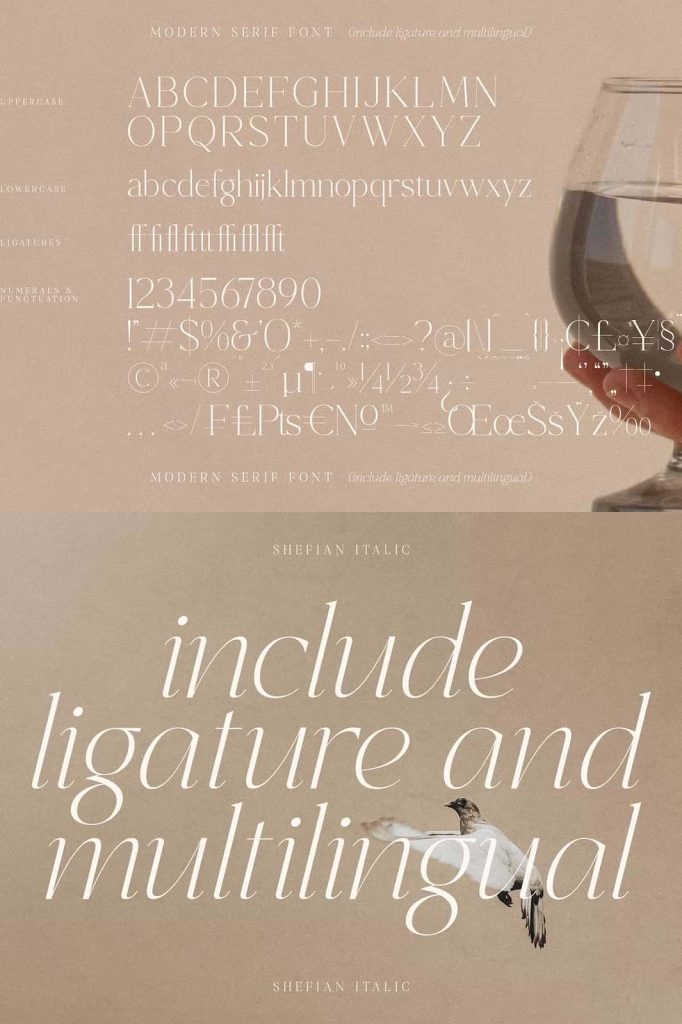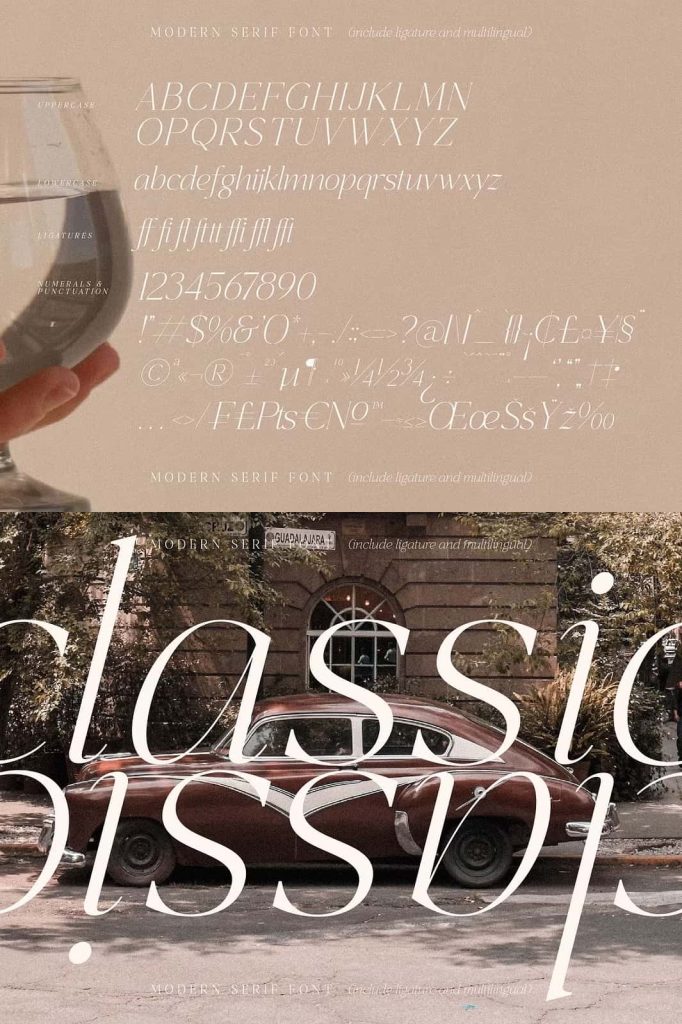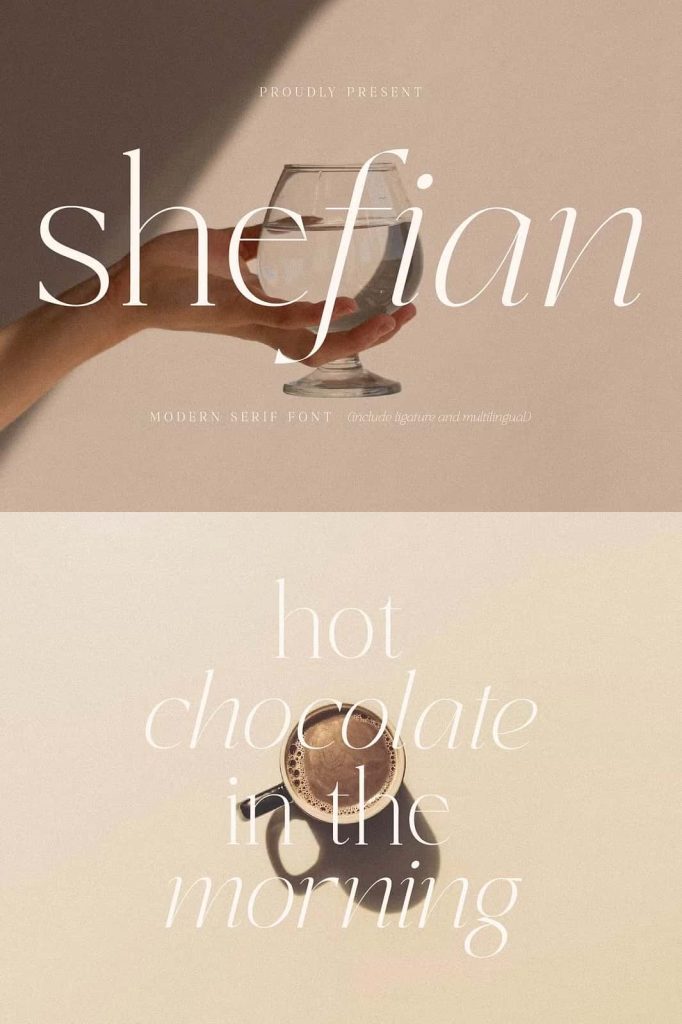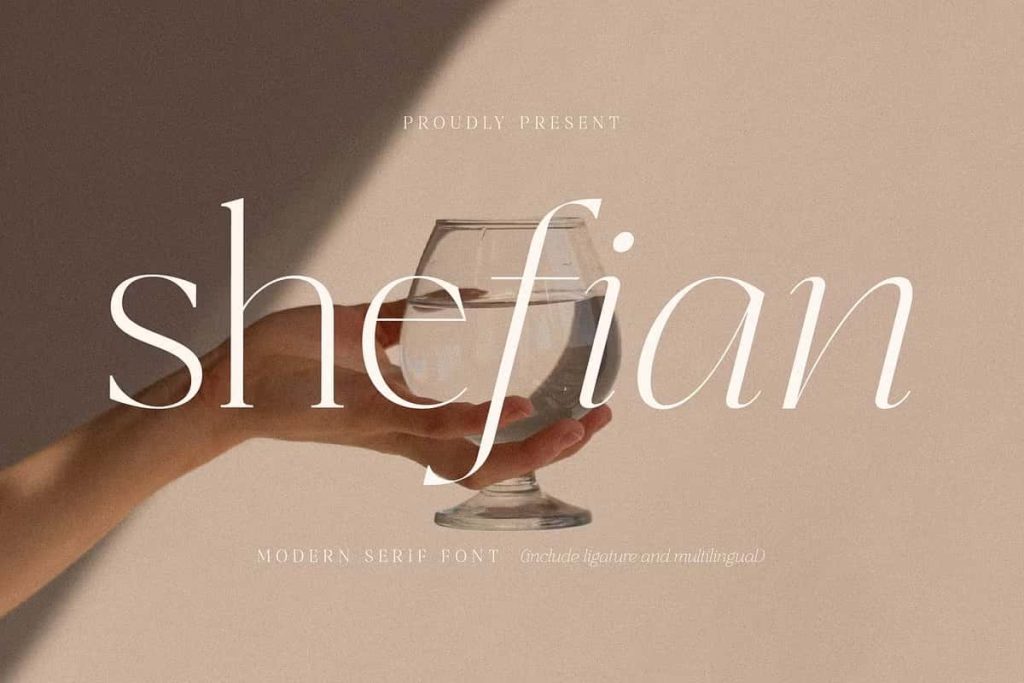
Shefian Modern Serif Font
Shefian Serif Modern Classic Typeface
Shefian is a modern classic serif typeface created by Storytype, designed to deliver elegance, sophistication, and a distinctive visual presence. This typeface blends traditional serif structure with modern styling to produce lettering that feels both timeless and contemporary. Designers who seek refined typography for premium projects will find Shefian to be a powerful tool for creating stylish and memorable visual identities.
The design of Shefian emphasizes balance, structure, and artistic detail. Each letterform carries carefully crafted proportions that allow text to look graceful and confident at the same time. Instead of relying on simple geometric shapes, the typeface introduces subtle variations in stroke and curve, which gives it a unique character. These details help the font stand out while maintaining a polished and professional appearance.
Whether used for branding, editorial design, or creative typography, Shefian transforms ordinary text into visually refined compositions. Its elegant personality allows designers to communicate luxury, style, and sophistication through typography alone.
A Modern Serif Typeface with Classic Elegance
Shefian combines the strength of traditional serif typography with a modern design approach. Classic serif fonts have long been associated with elegance and authority, and Shefian continues that tradition while introducing contemporary styling that feels fresh and relevant.
The letterforms feature graceful curves and strong vertical strokes that create a balanced visual rhythm. This structure helps the font maintain readability while still expressing a luxurious character. Designers can use Shefian in titles and headings where typography needs to make a strong visual statement.
The typeface also reflects the influence of modern editorial design, where typography often becomes the focal point of a layout. Shefian’s refined shapes allow it to stand confidently within both minimalist and richly decorative compositions.
A Unique Style That Elevates Typography
One of the defining features of Shefian is its distinctive style. The typeface does not simply imitate traditional serif fonts. Instead, it introduces subtle stylistic elements that give each character a unique personality. These details include elegant stroke contrasts, carefully shaped serifs, and balanced proportions that create a sophisticated appearance.
These stylistic elements allow designers to create typography that feels distinctive without sacrificing clarity. When used in headlines or logo designs, Shefian immediately captures attention and communicates a sense of refinement.
The unique design also makes the typeface suitable for creative typography projects. Designers can experiment with spacing, size, and layout to build compositions that highlight the artistic qualities of the font.
Perfect for Elegant and Luxury Logo Design
Shefian performs exceptionally well in luxury branding and logo design. Many premium brands rely on serif typography to communicate quality, heritage, and sophistication. Shefian provides the visual elegance required to establish a strong and memorable brand identity.
Designers can use the font to craft logos for fashion labels, beauty brands, boutique businesses, and luxury products. The refined structure of the letters allows brand names to appear confident and stylish across various marketing materials.
When applied to logos, the typeface delivers both clarity and visual distinction. Its elegant design helps brands stand out while maintaining a timeless aesthetic that remains relevant for years.
Ideal for Fashion Brands and Editorial Design
Fashion and lifestyle industries often rely on elegant typography to communicate style and sophistication. Shefian fits perfectly within this creative space. Its modern serif structure aligns beautifully with fashion branding, magazine layouts, and editorial design.
Designers working on fashion magazines or editorial publications can use Shefian for headlines, article titles, and feature typography. The font creates a sense of luxury and professionalism that enhances the overall reading experience.
In branding projects, Shefian also helps fashion labels build strong visual identities. Product labels, packaging designs, and promotional graphics benefit from the refined character of this modern serif typeface.
Great for Book Covers, Movie Titles, and Quotes
Shefian also excels in creative storytelling projects such as book covers and movie titles. Typography plays a crucial role in establishing the mood and identity of a story. With its elegant structure and dramatic presence, Shefian helps designers create titles that feel captivating and visually powerful.
Book cover designers can use the font to highlight titles and author names while maintaining a sophisticated aesthetic. The graceful letterforms bring visual elegance to literary and artistic publications.
Shefian gives designers the opportunity to create typography that communicates elegance, luxury, and artistic refinement. Its blend of modern and classic design principles produces a serif typeface that feels timeless yet contemporary.
From luxury logos and fashion branding to book covers, magazine titles, and creative quotes, Shefian enhances every project with its distinctive style. Designers who want their typography to express sophistication and visual authority will find this modern classic serif typeface to be a valuable addition to their creative toolkit.